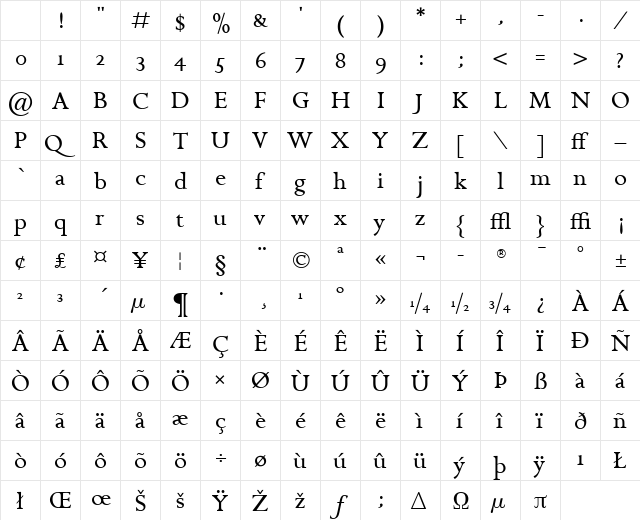
Golden Cockerel ITC Roman Regular
Golden Cockerel ITC Roman Family
Design Context for Golden Cockerel ITC Roman
Golden Cockerel ITC Roman is a composed and adaptable typeface that performs quietly and consistently across a wide range of design contexts.